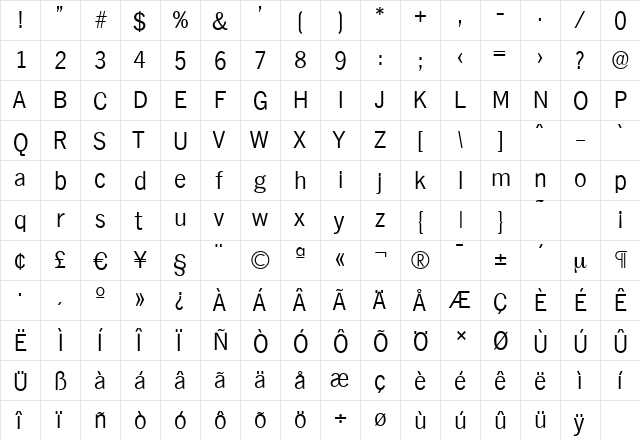
HamburgSerial-Light Regular
Design Context for HamburgSerial-Light Typeface
HamburgSerial-Light is a composed and adaptable typeface that performs quietly and consistently across a wide range of design contexts. Its slender proportions lend an understated elegance to any composition.
Pro Tip: Use HamburgSerial-Light in both headline and body roles to test its range before committing to a single application.